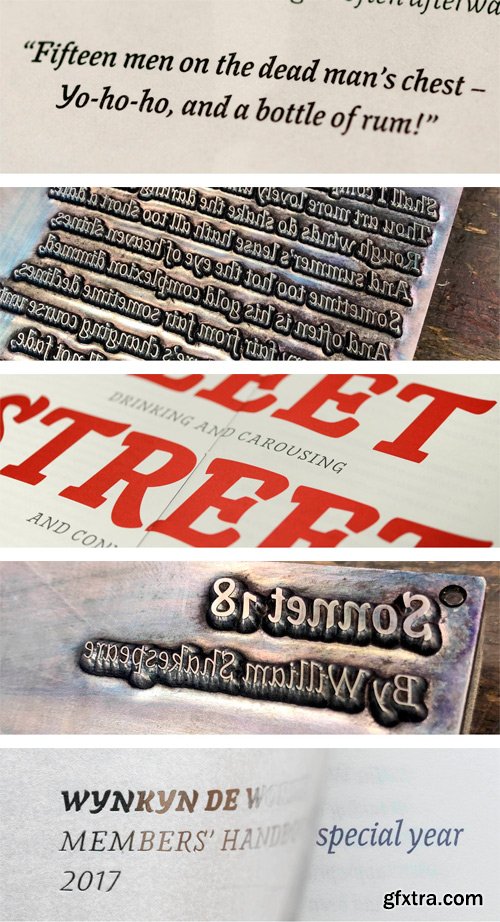
De Worde Font Family
Inspired by the early 16th century italic used by the printer Wynkyn de Worde. As well as being capable of setting complex typography, it’s also great for a range of uses including headlines, titles, and anything with a personal feel or a little joie de vivre.